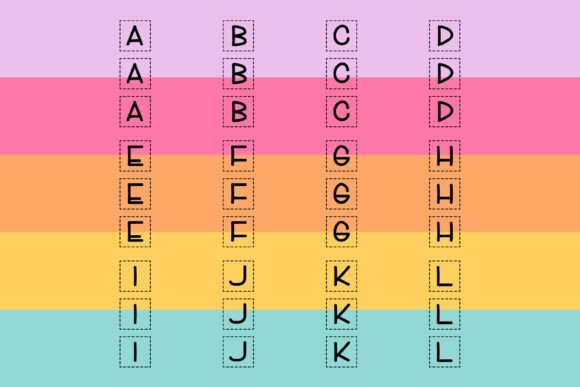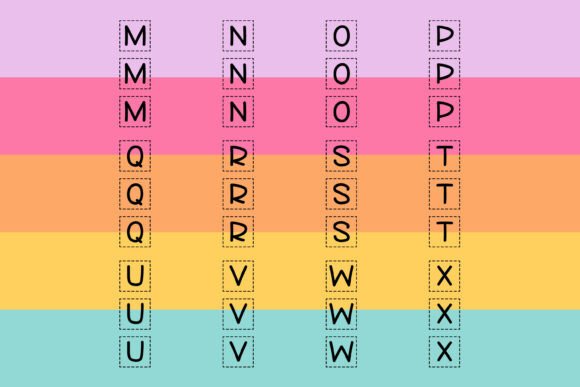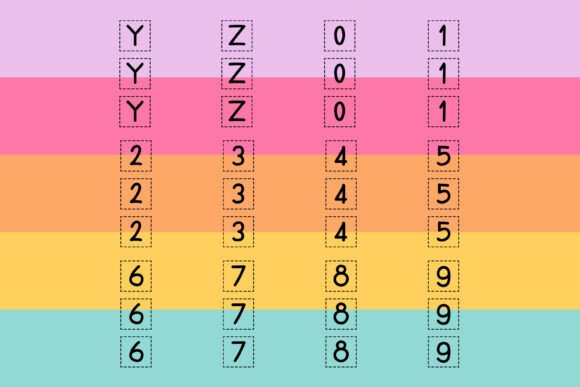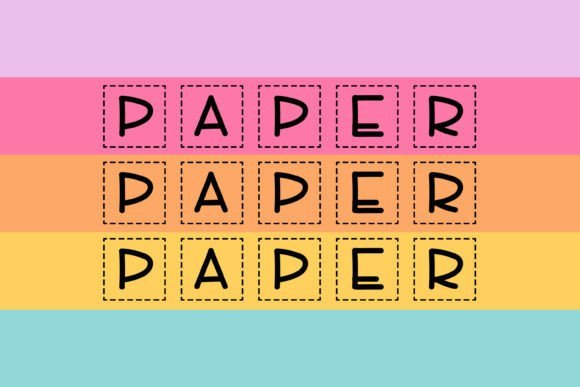
Introduction to Papersnip Stacked Font
Paper Snip is a fun and crafty decorative font inspired by paper cutting and handmade school projects.
Each letter has a playful shape, boxed inside a dashed-line border like it’s ready to be cut out and used in a collage Perfect for labeling classroom materials, DIY projects, school signage, and craft kits β€” this font is hands-on fun in typographic form.
Key Features of Papersnip Stacked Font
Why Choose Papersnip Stacked Font?
Papersnip Stacked Font offers exceptional quality and versatility, making it a valuable addition to your design toolkit. Whether you’re creating for personal projects or commercial use, Papersnip Stacked Font delivers professional results.